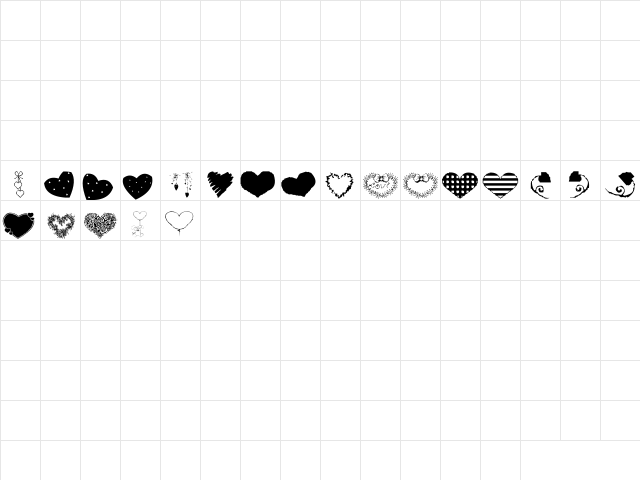
AEZ executive hearts Font Preview
AEZ executive hearts AEZ executive hearts
AEZ executive hearts Font Details
| Style | AEZ executive hearts |
| Designer | Anastacia E. Zittel |
Design Context for AEZ executive hearts Typeface
AEZ executive hearts is a composed and adaptable typeface that performs quietly and consistently across a wide range of design contexts.